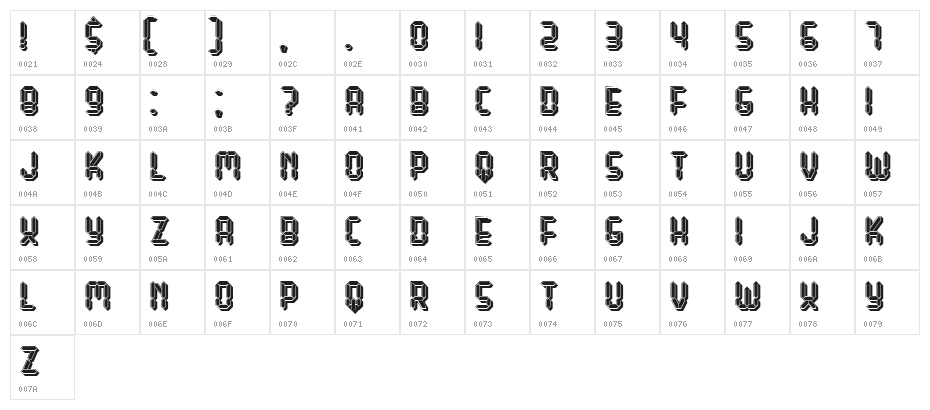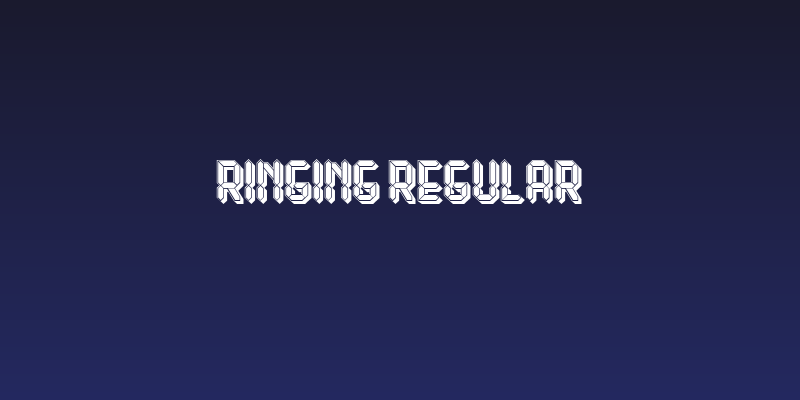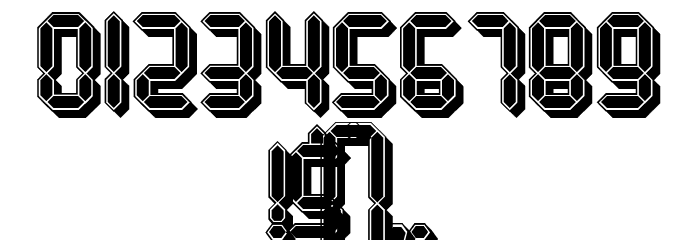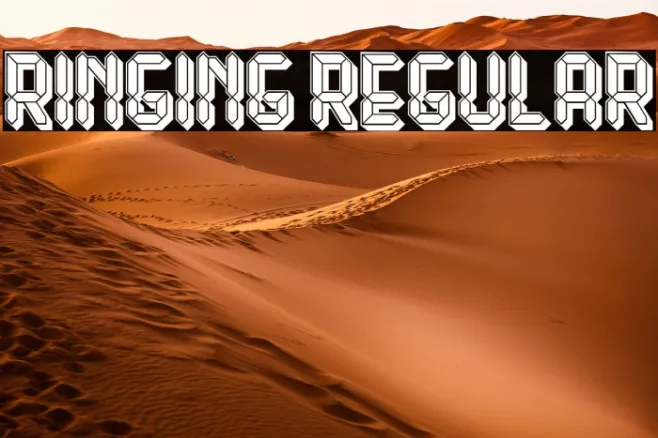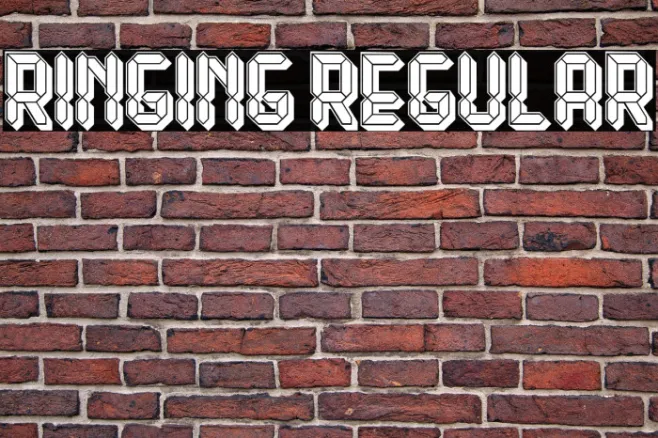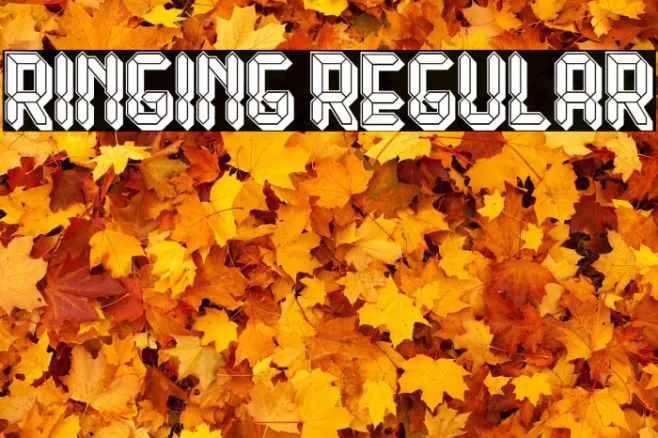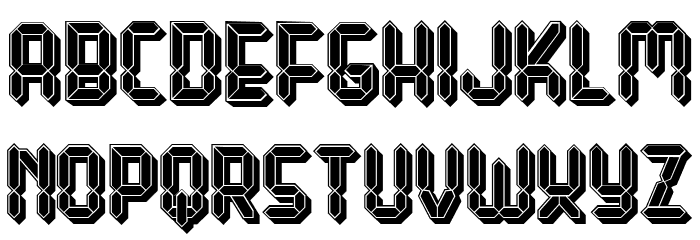
Ringing Regular Font
Ringing Regular Description
This font features a bold, geometric design with a three-dimensional effect. Each character is constructed with thick, angular lines that create a sense of depth and structure. The style is reminiscent of digital or futuristic themes, with a strong emphasis on symmetry and precision. The uppercase and lowercase letters maintain a consistent design, while the numbers and special characters complement the overall aesthetic. The font's unique appearance makes it stand out, ideal for projects that require a modern and eye-catching typeface.